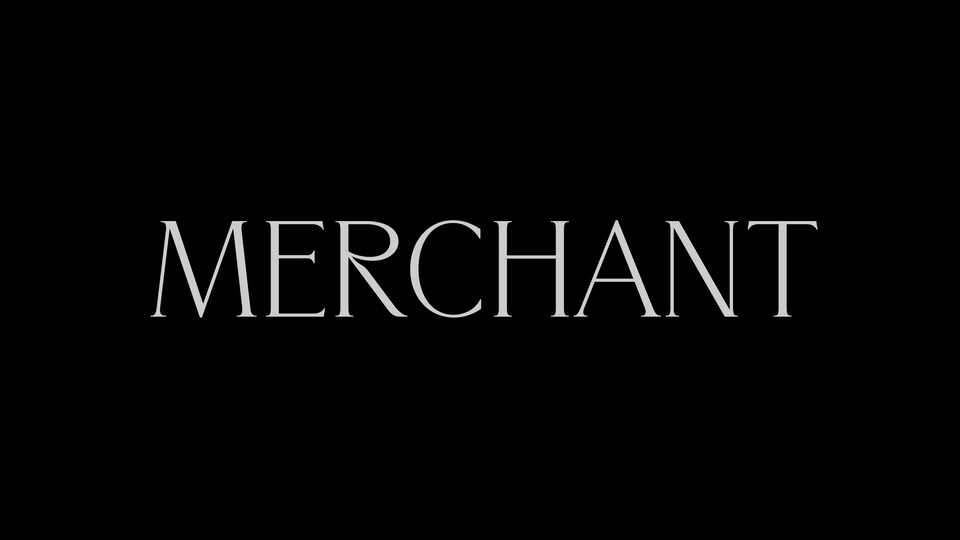
Download Merchant font, a graceful transitional serif typeface with gorgeous and pleasant contrast and beautifully crafted characters. Merchant is ideal for logos, titles, brands, editorial design, and magazines.
Designer: Rajesh Rajput